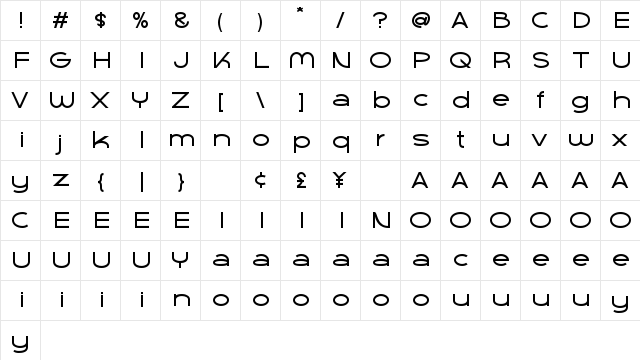
Kame Free Regular
| Foundry | Jehoo Creative |
| Designer | Anwar Patihan |
Design Context for Kame Free Typeface
Kame Free is a composed and adaptable typeface that performs quietly and consistently across a wide range of design contexts.